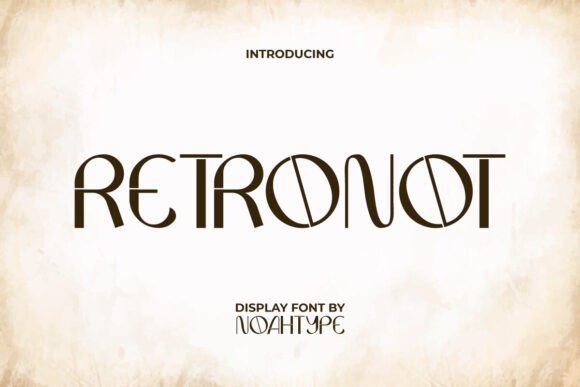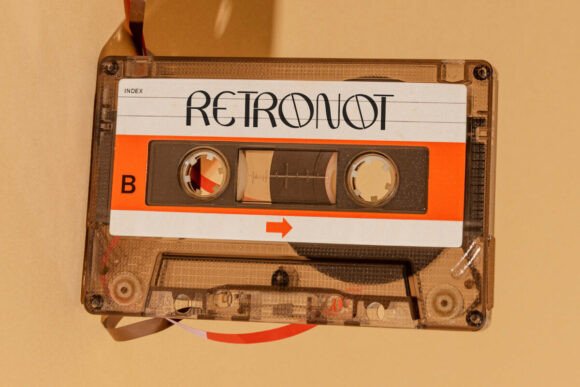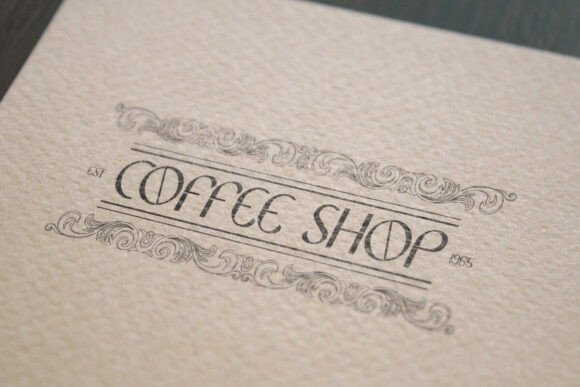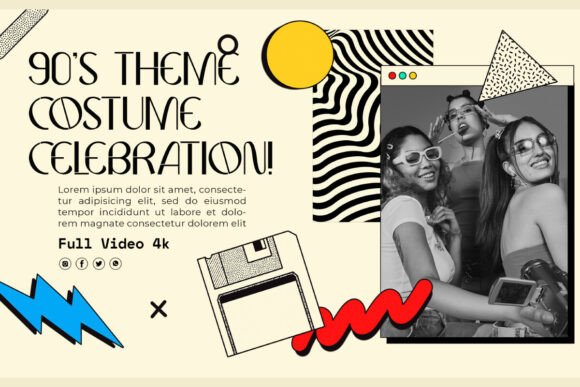
Retronot Font: A Unique Retro Display Font for Eye-Catching Headlines!
About the Retronot Font
From logos to headlines, the Retronot Font is the perfect choice for making a lasting impression. Retronot Font is a retro galaxy-themed display font. A retro type font like this can bring your design to that era and will never be boring. It will be perfect for any designs, such as brand image, cover, custom design, invitation, label, marketing material, menu, poster, product packaging, quote, signage, stationery, web, and many more!
Retronot’s bold, playful personality makes it ideal for headlines, posters, and packaging where a strong visual statement is needed. It excels in short, impactful text applications, lending itself well to branding for retro-themed products or businesses. However, its highly stylized forms make it unsuitable for body copy or UI elements requiring high readability.
Consider pairing Retronot with a clean sans-serif like Open Sans for a balanced contrast, or a more geometric sans-serif like Futura for a modern, streamlined feel. For a vintage touch, a classic serif like Garamond could be effective, while a playful script font might enhance its retro charm for certain applications.
The font’s inherent energy is best suited for projects that evoke nostalgia or a sense of fun, but less so for contexts requiring sophistication or subtlety.
Retronot Font Usage Examples
Retronot Font Example